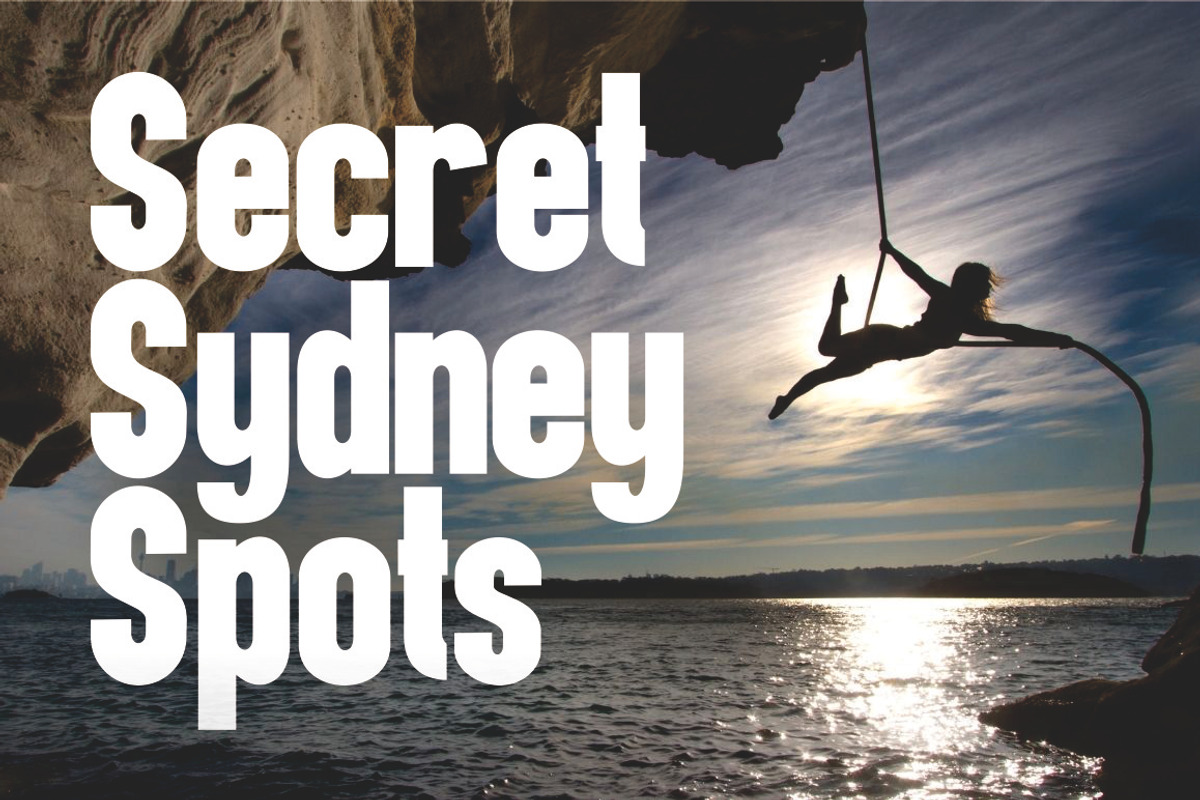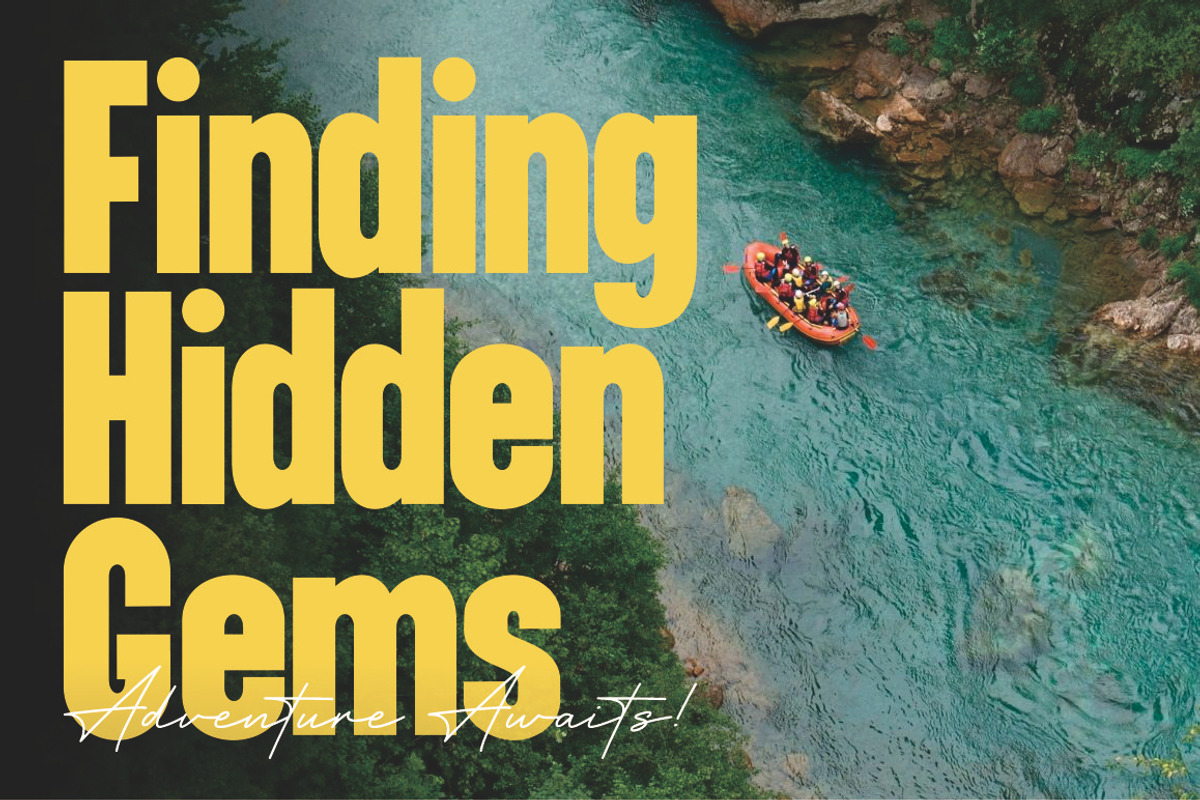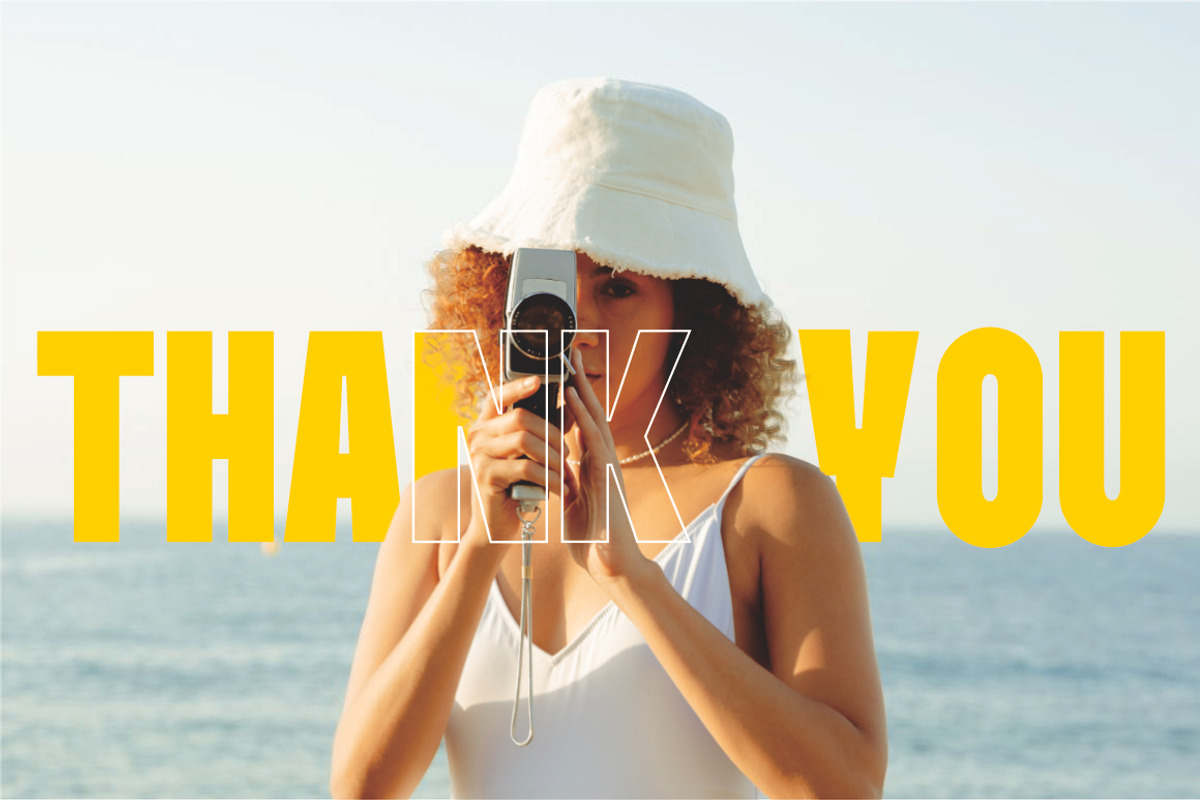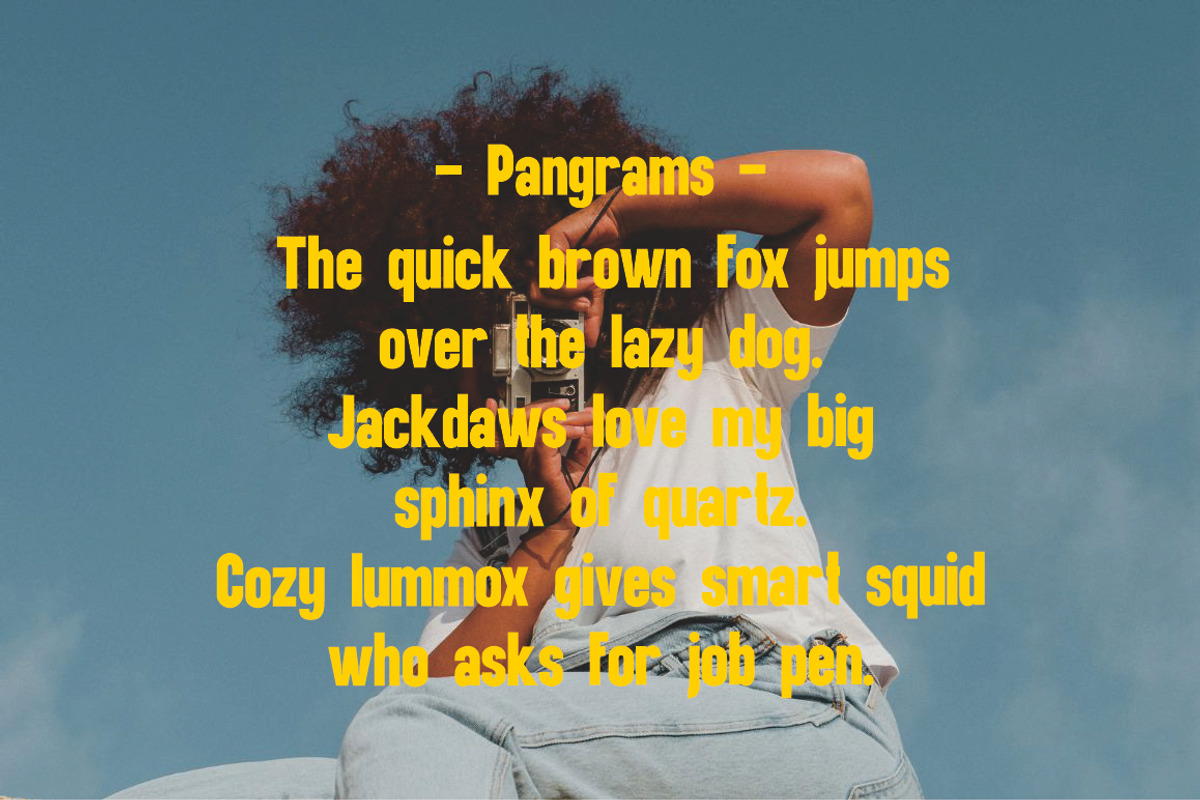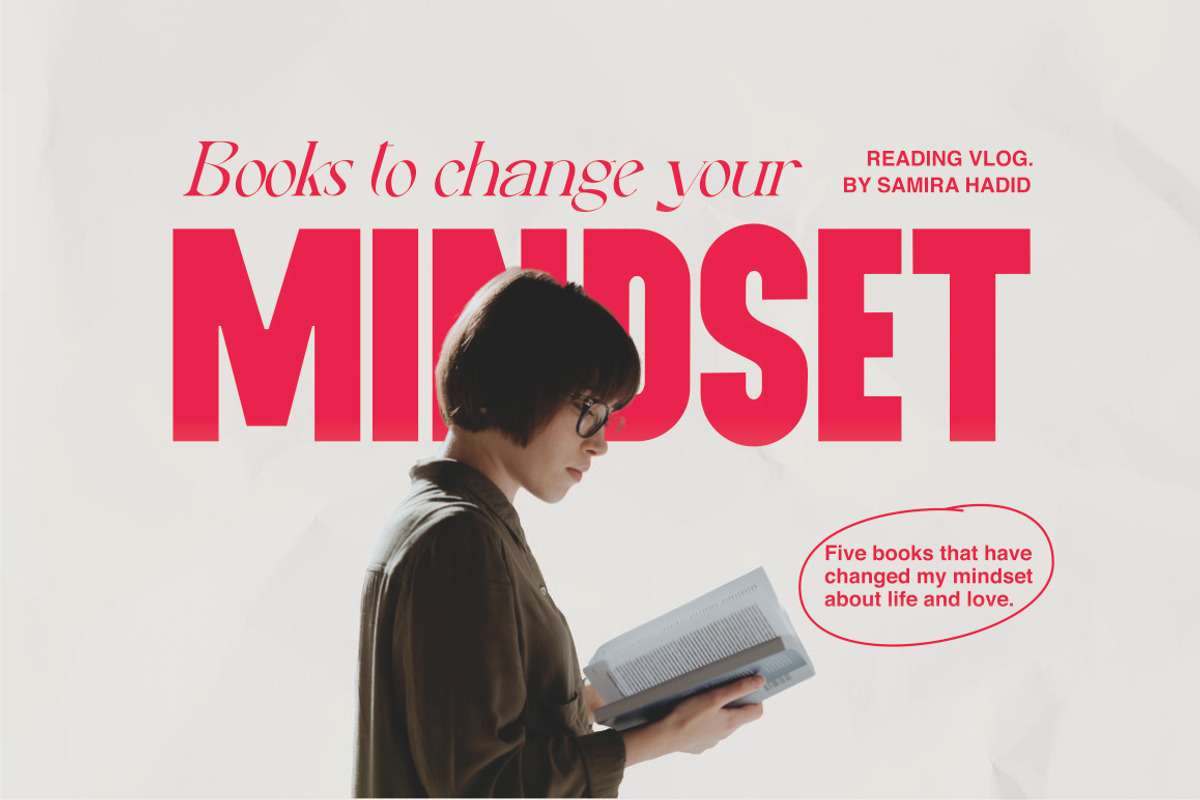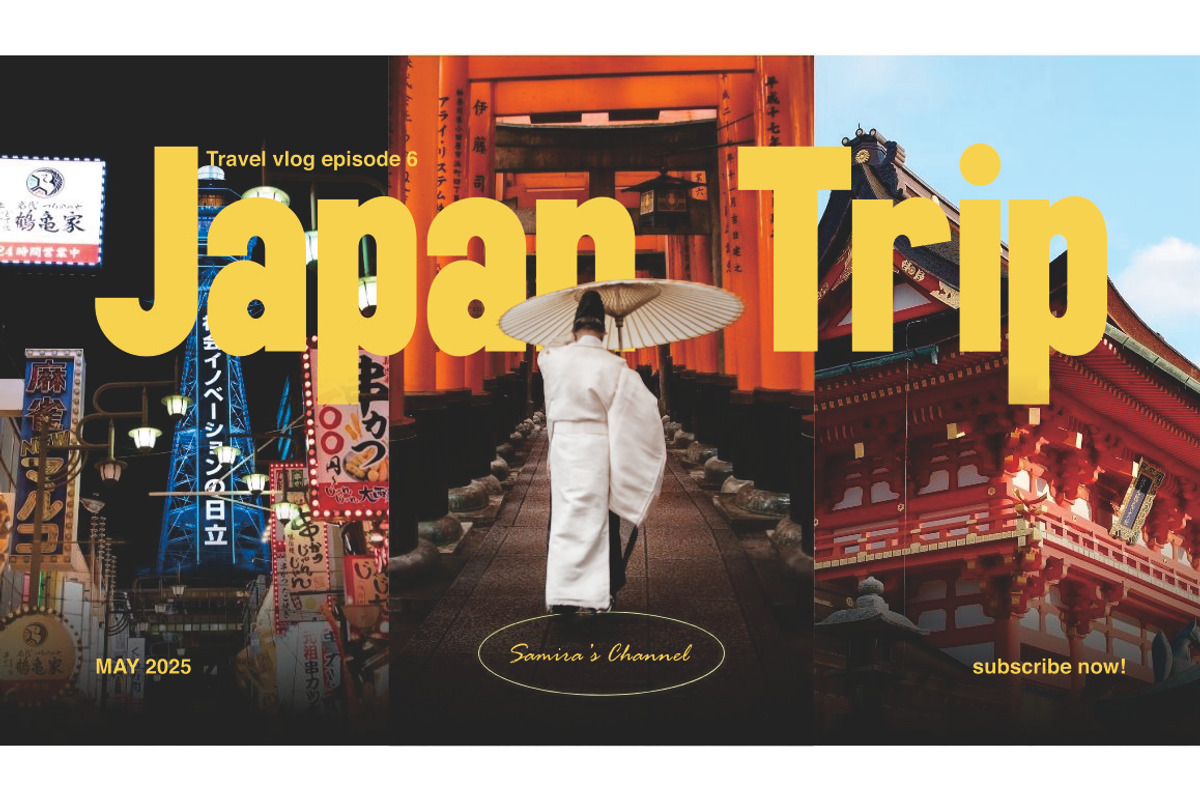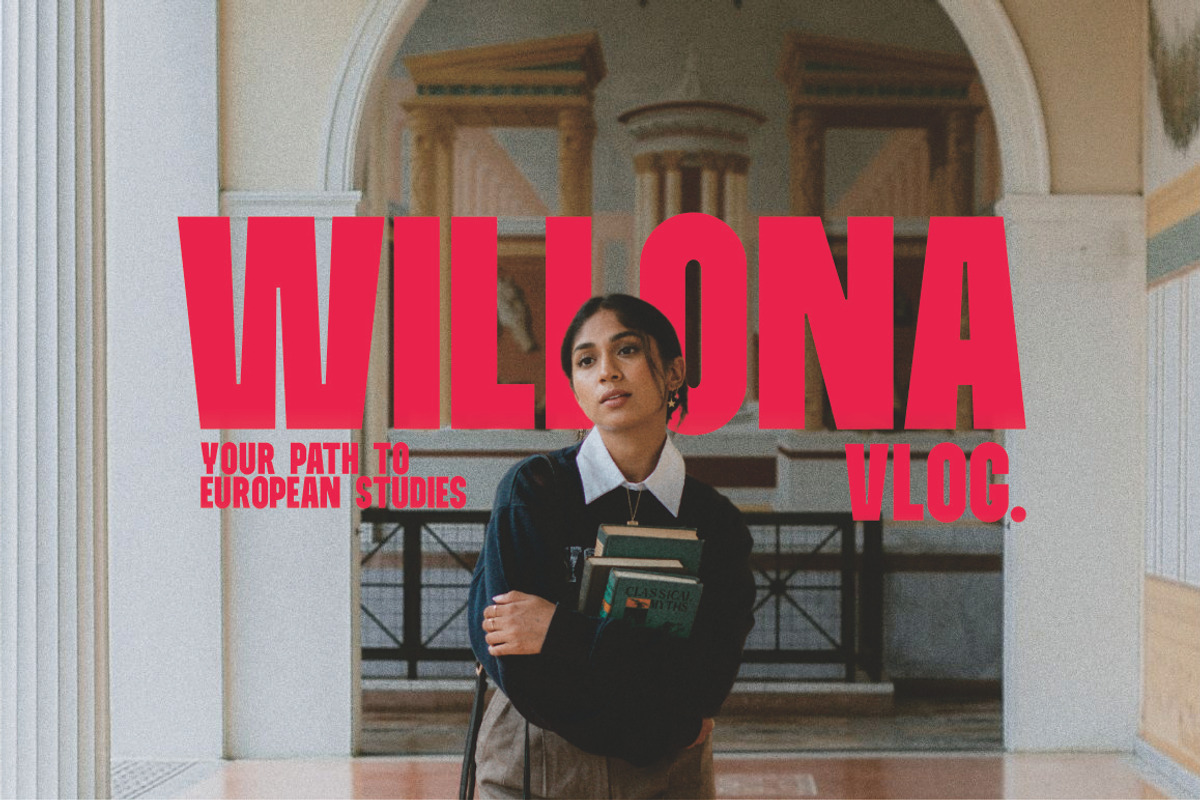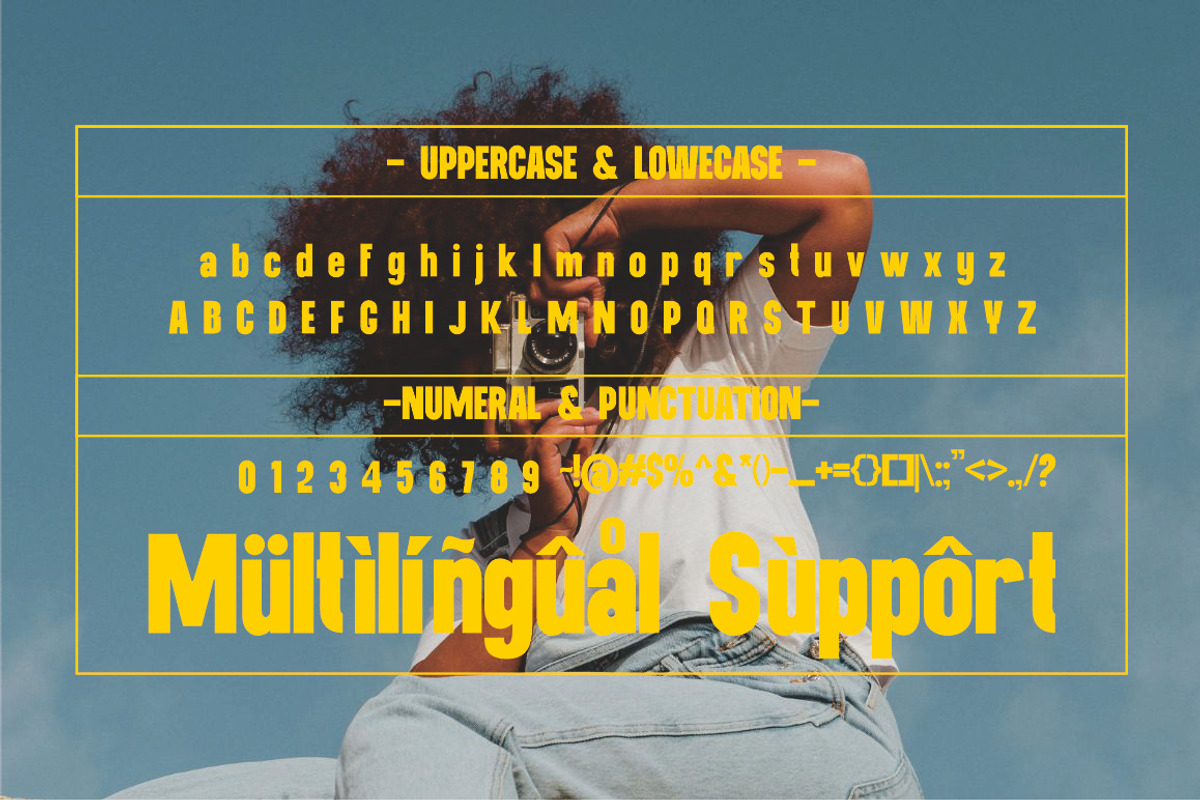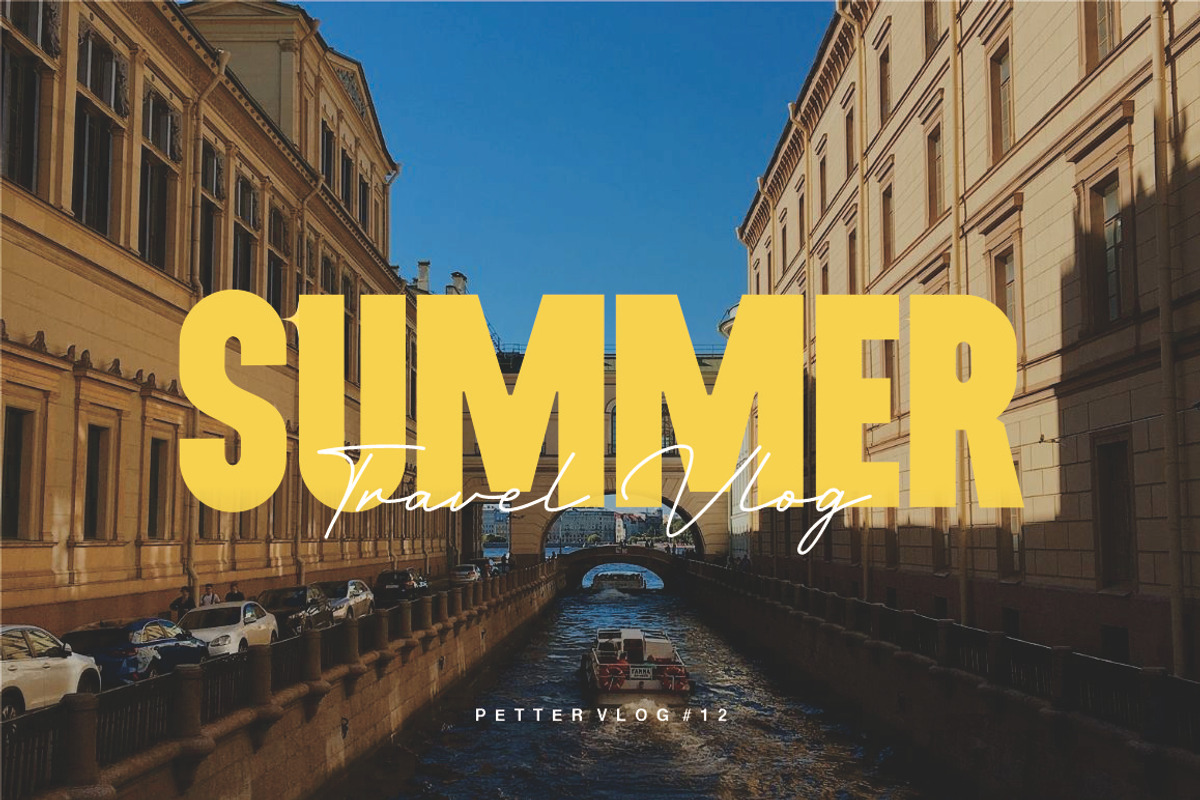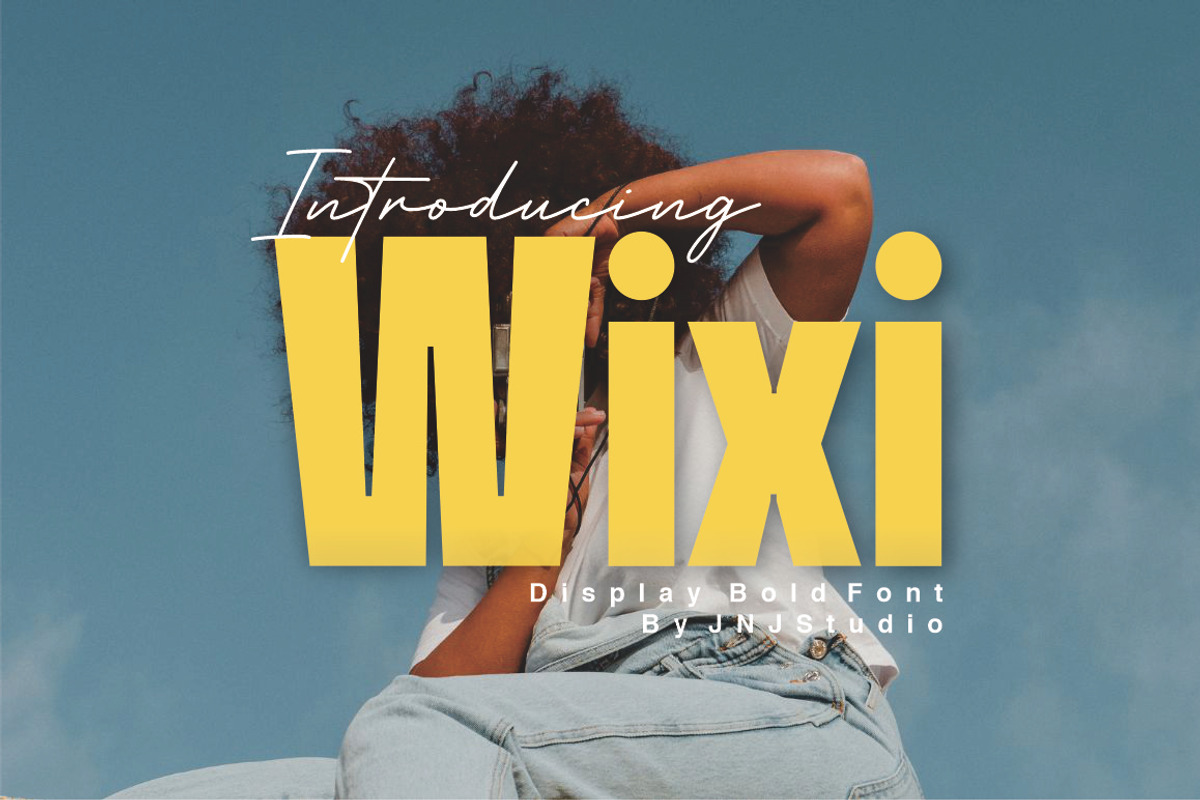
Wixi Display Bold Font
Wixi is a bold, attention-grabbing display font designed to make a statement. With its thick strokes, modern curves, and playful edge, Wixi brings a sense of energy and confidence to any design. Ideal for headlines, posters, branding, and digital media, this font delivers high impact and strong personality. Its contemporary style balances clarity and creativity, making it perfect for projects that demand bold expression with a touch of uniqueness.